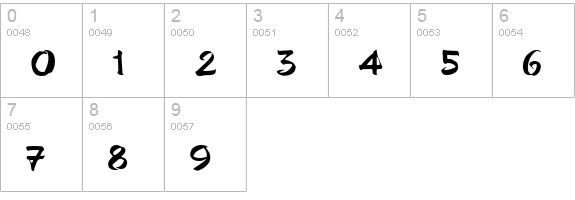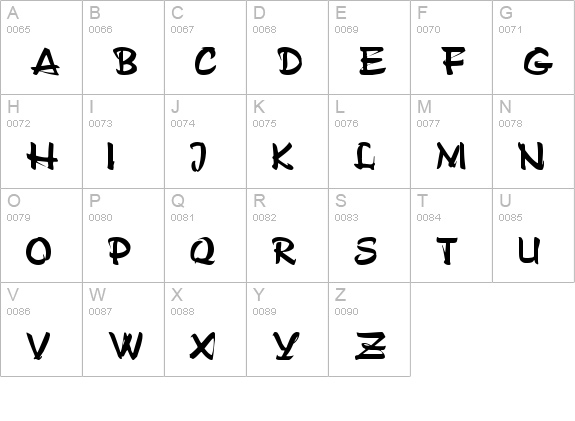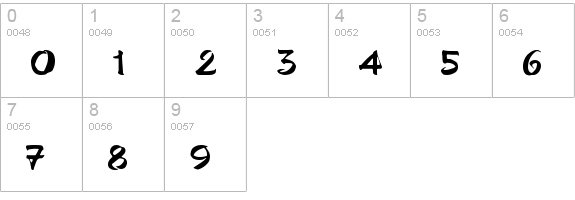
Polo-Semiscript Regular is the standard, neutral variant in the Polo typeface family \xE2\x80\x94 well suited to general body text, paragraphs, and standard typographic work.
Polo-Semiscript Regular font is a versatile and stylish typeface that strikes the perfect balance between elegance and readability. With its smooth curves and clean lines, this font is ideal for a wide range of design projects, from branding to invitations to packaging. The semi-script style adds a touch of sophistication to any text, making it perfect for adding a touch of personality to your designs. Best of all, Polo-Semiscript Regular font is available for free download at FontsMarket.com. Whether you're a seasoned designer or just starting out, this font is a valuable addition to your toolkit. Download it today and elevate your designs with the timeless elegance of Polo-Semiscript Regular font.